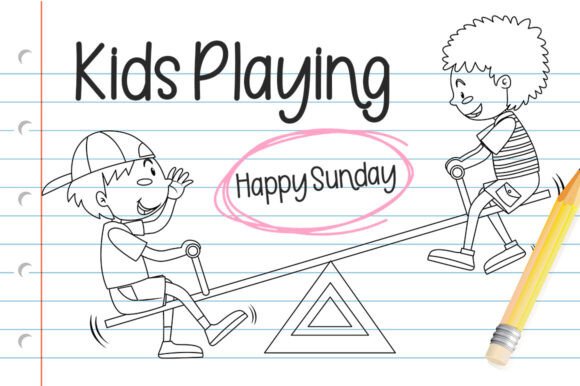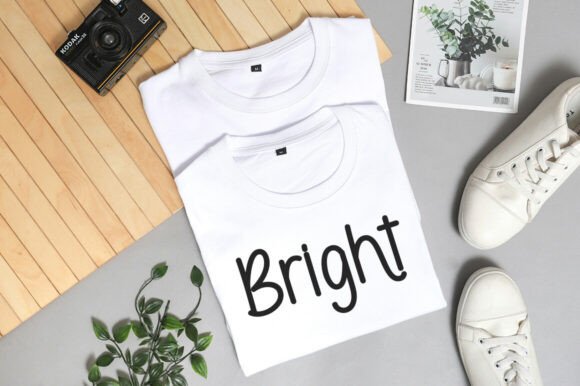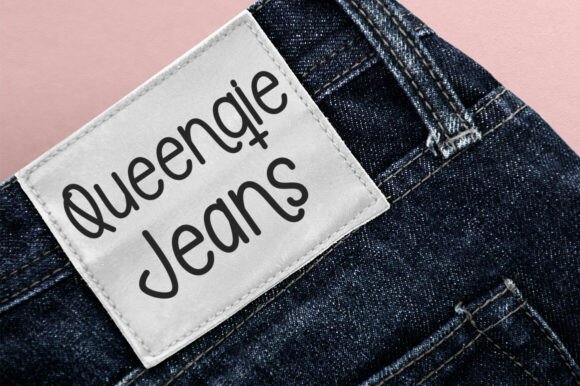
Alphabet Teacher Font
Introducing Alphabet Teacher, an elegantly modern and casually playful font that infuses charm to your creative process. With its regular design, this font showcases a captivating swash that enhances its allure. Perfectly suited for diverse applications, Alphabet Teacher breathes life into your logo designs, channels romance into wedding invitations, and creates authority in headlines. It adds personality to product packaging, infuses identity on labels, and reigns supreme in signage. Use it to establish an autograph-like impact in signatures, create enthralling book covers, or design inspiring posters. Sprinkle it on your quotes for that touch of whimsy! Unleash your creativity and allow Alphabet Teacher to be the unsung hero behind your visually stunning projects.